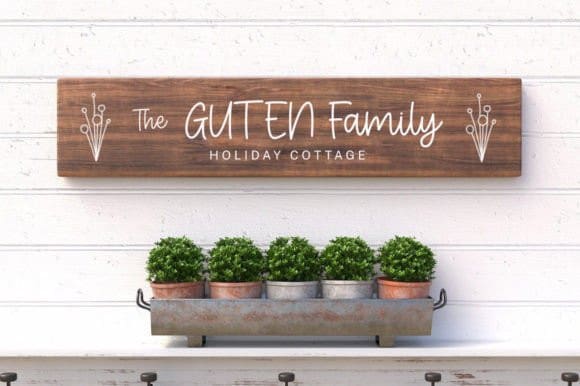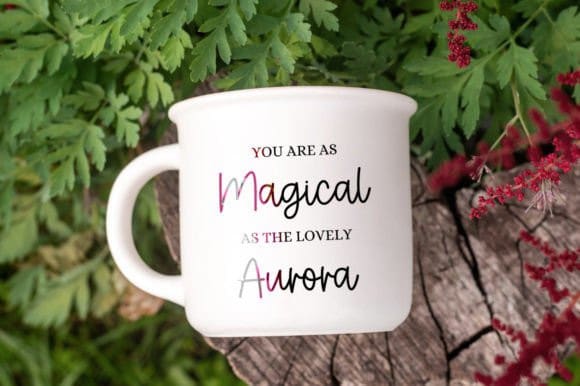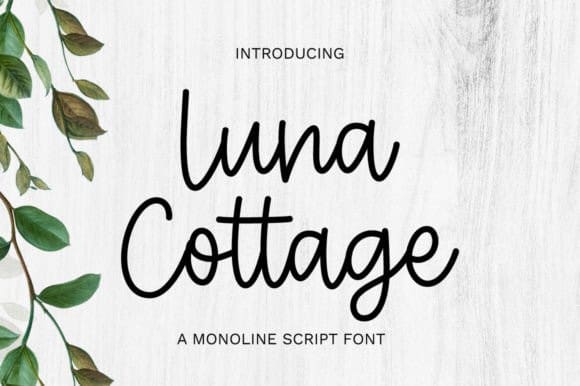
Luna Cottage Font
Luna Cottage Font is a delicate, elegant, and flowing monoline script font. It has beautiful and well-balanced characters and as a result, it matches a wide pool of designs.